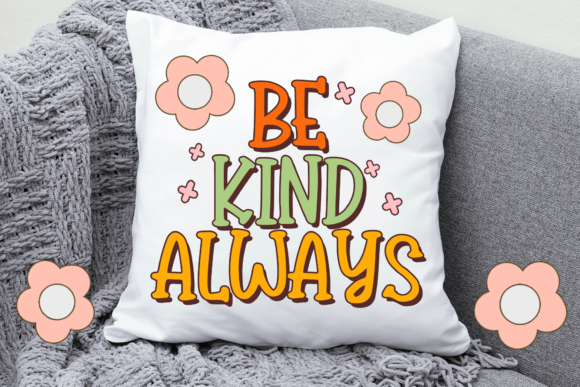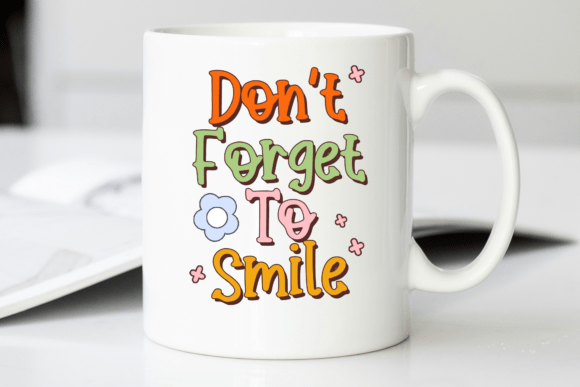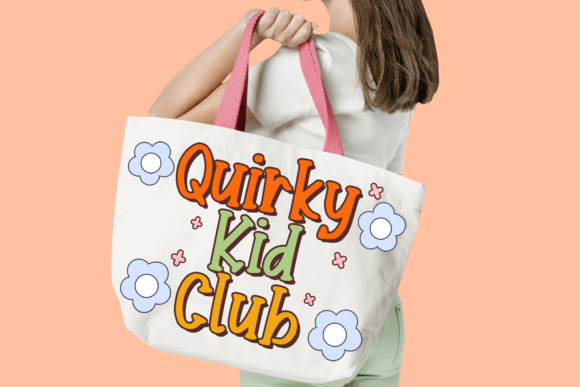
Introduction to Quirky Comic Font
Quirky Comic is a playful, versatile and cute comic font that you can use for many designs themes.
It will elevate a wide range of design projects to the highest level You can use this font for many design ideas such as stickers, t-shirt designs, amazing logo designs, magazine or book covers, comics, cartoon drawings, daily typing, and many more.